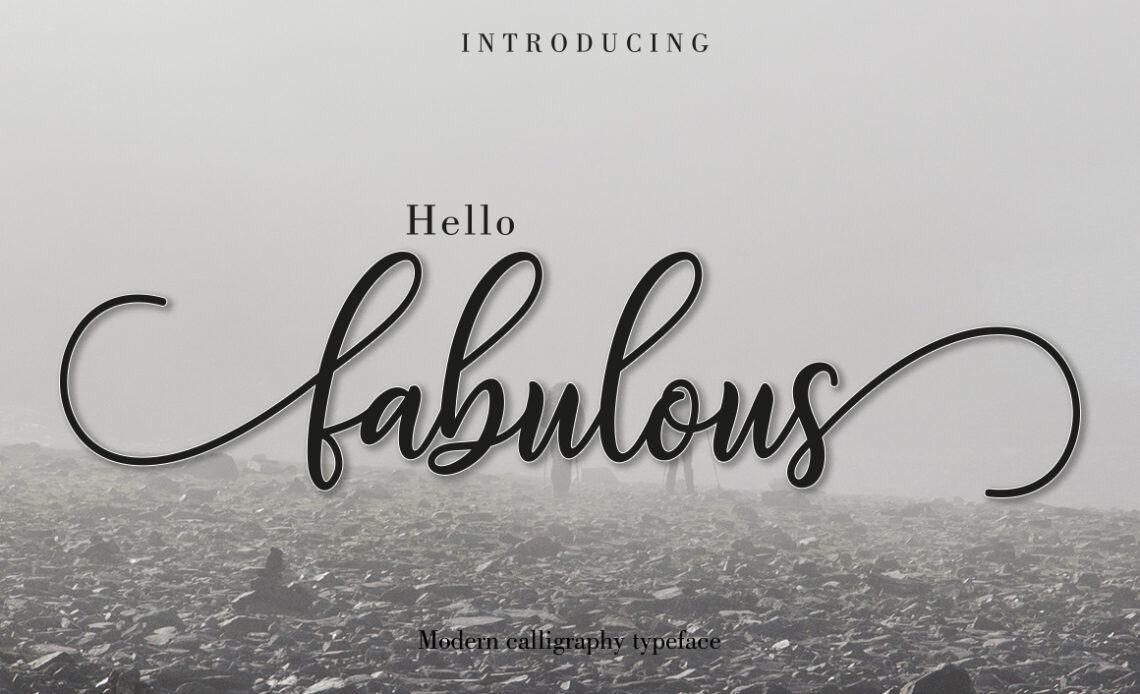
Introducing the Fabulous Script Font Collection, where elegance meets modernity to create a captivating visual experience. Crafted by the talented Amarlettering, this font family is designed to elevate your messages and leave a lasting impression on your audience.
With its stunning and variable design, the Fabulous Script Font is a true masterpiece. Its intricate strokes and graceful curves exude sophistication, making it perfect for a wide range of projects. Whether you're creating wedding invitations, branding materials, or social media posts, this font will effortlessly enhance the beauty of your designs.
What sets the Fabulous Script Font apart is its ability to infuse a personal touch into your creations. It adds a touch of warmth and authenticity, allowing your messages to resonate deeply with your audience. Each letter is meticulously crafted, ensuring that every word you write becomes a work of art.
This font collection is a must-have for anyone looking to make a statement. Its versatility allows it to adapt to various themes and styles, enabling you to create unique and eye-catching designs. Whether you're aiming for a vintage, modern, or elegant look, the Fabulous Script Font has got you covered.